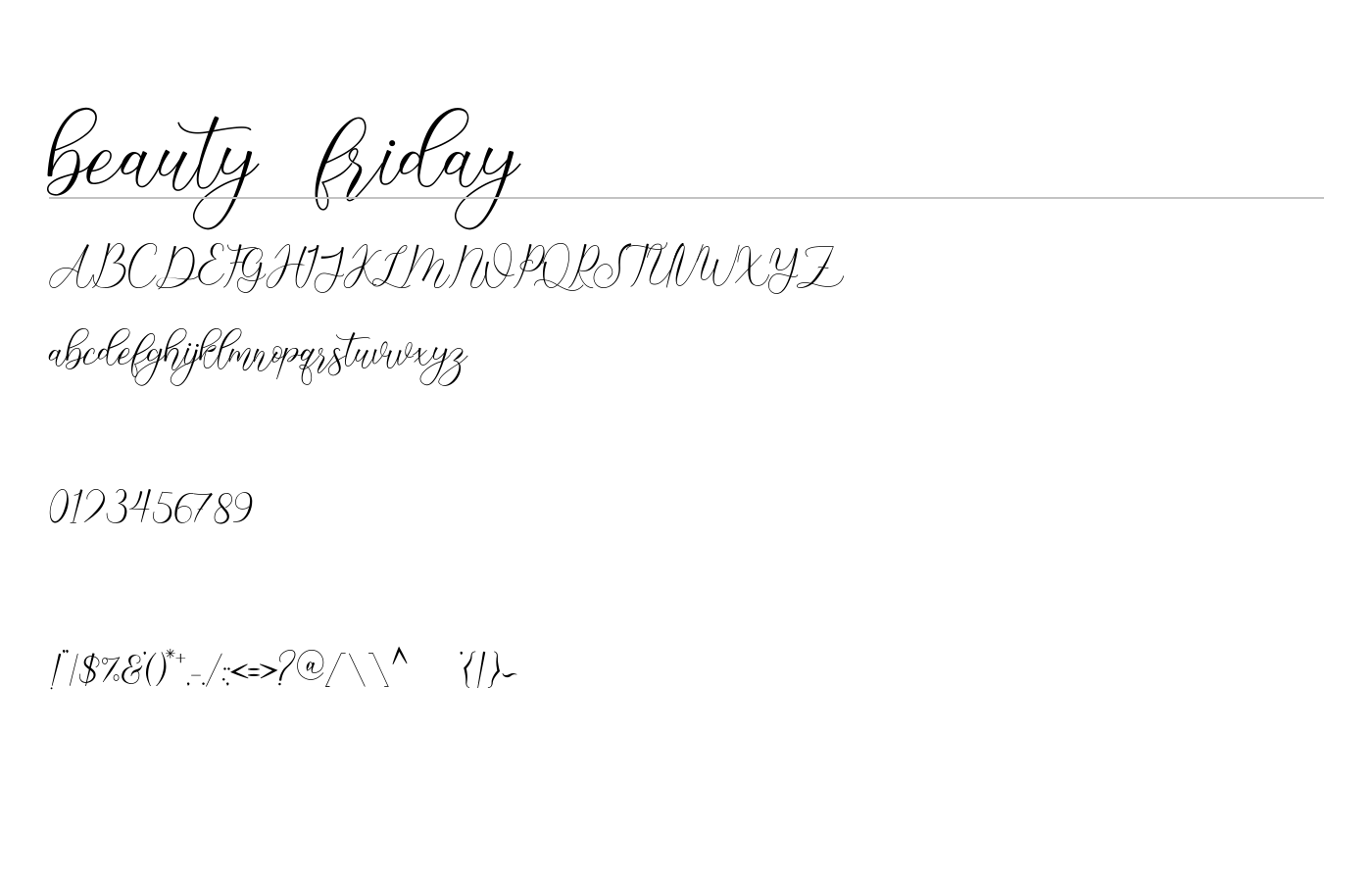
Beauty Friday is a delicate, elegant script font with fine, flowing strokes that evoke a sense of sophistication and femininity. Its slender letterforms and graceful curves make it perfect for branding in fashion, beauty, and lifestyle sectors, especially for logos and invitations where a refined, handwritten touch is desired. This font shines in uses that call for a stylish, personal feel without overwhelming heaviness.
beauty friday Font
About beauty friday Font